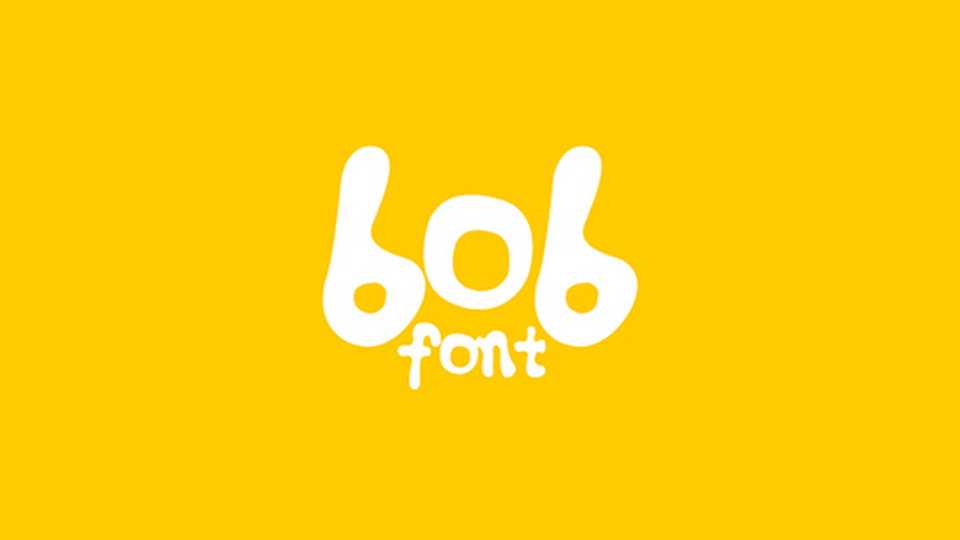
Download Bob font, a cool hand made typeface with a fun cartoon character. Bob font looks perfect for posters, kids products, t-shirt prints, crafts, books, games and other artworks.